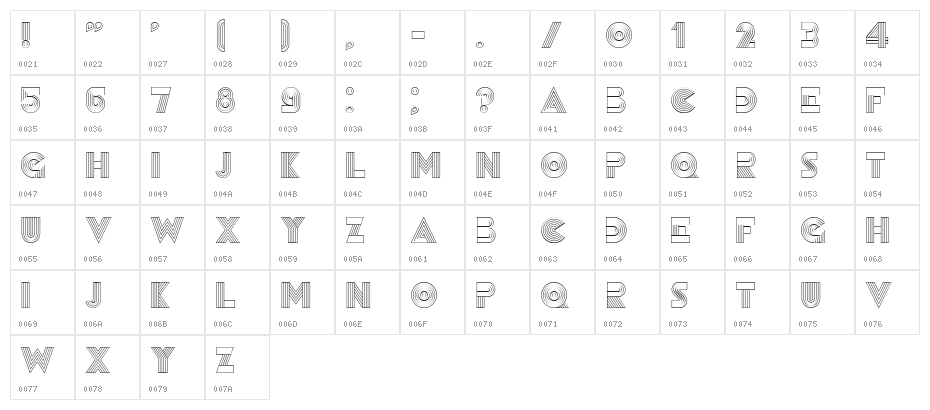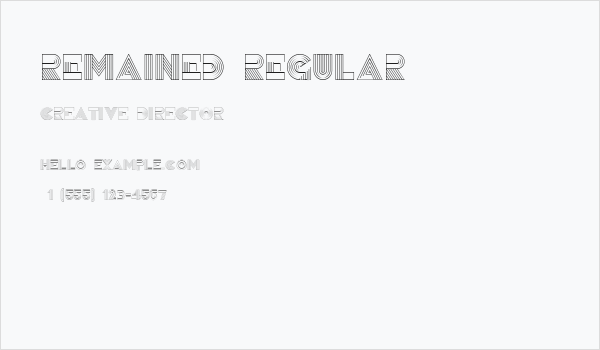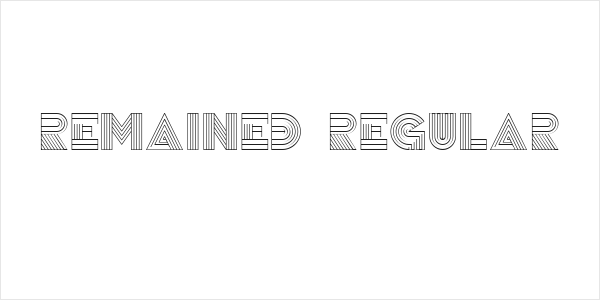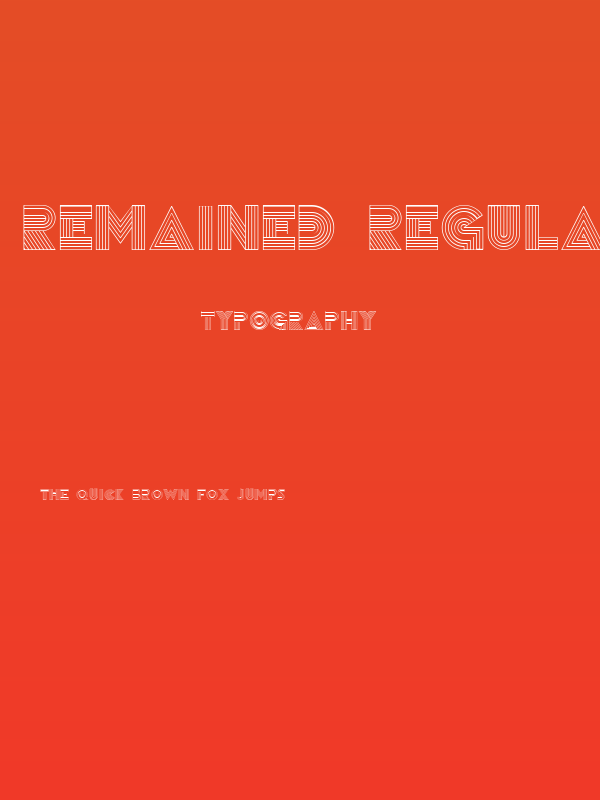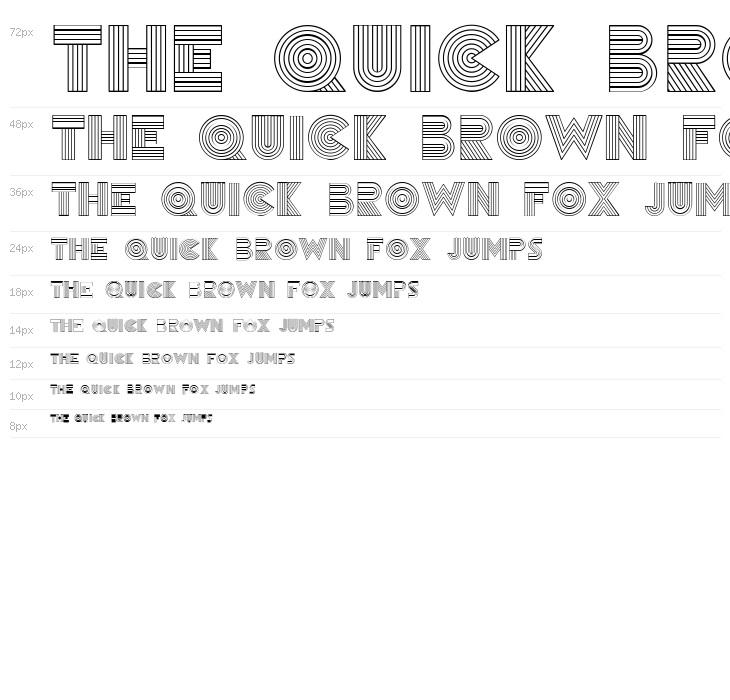
Remained Regular Font
Remained Regular Description
This font features a unique and eye-catching design characterized by multiple concentric lines forming each character. The geometric and structured appearance gives it a modern and futuristic feel. The uppercase letters are bold and prominent, while the numbers and special characters maintain the same intricate line pattern. This font is ideal for projects that require a standout display typeface, offering a distinctive visual impact. The consistent line width across all characters ensures a harmonious and balanced look, making it suitable for various creative applications.
| Proposed Projects | Ideal for posters, logos, album covers, and any project needing a striking display typeface. |